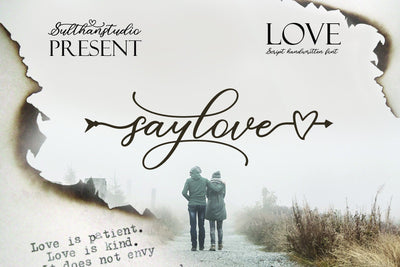
Say love
Say love - a new calligraphy font with italics added with a love arrow, this font is still fresh, also luxurious, attractive, sweet, for this font can also be connected with the front and back hearts. Great for greeting cards, branding materials, business cards, quotes, posters, and more!